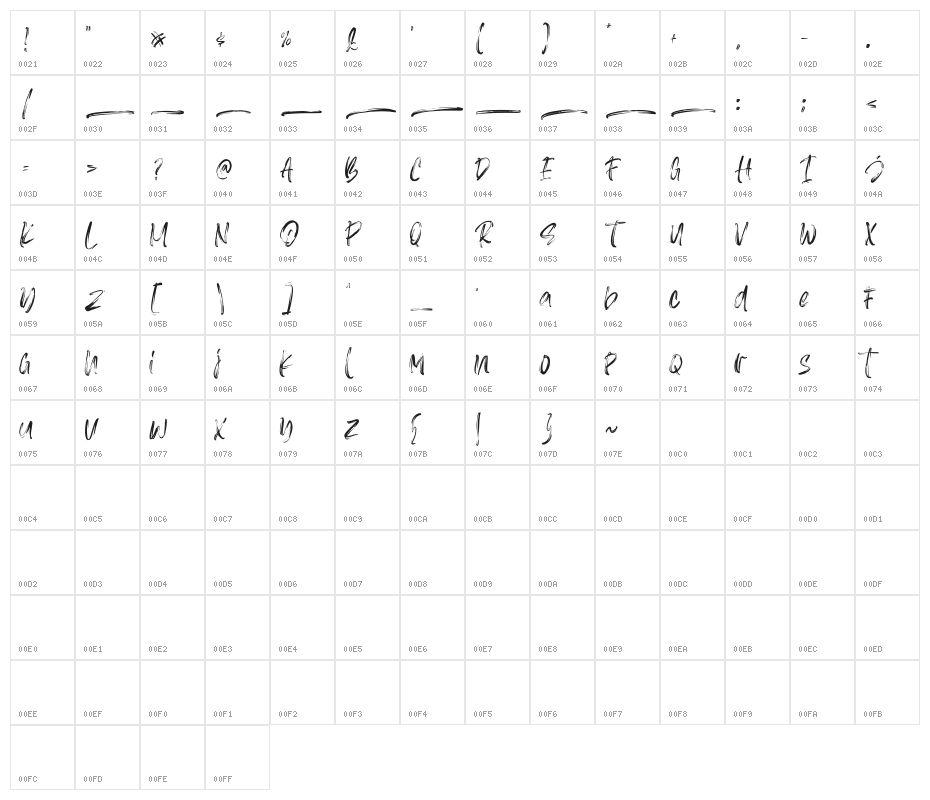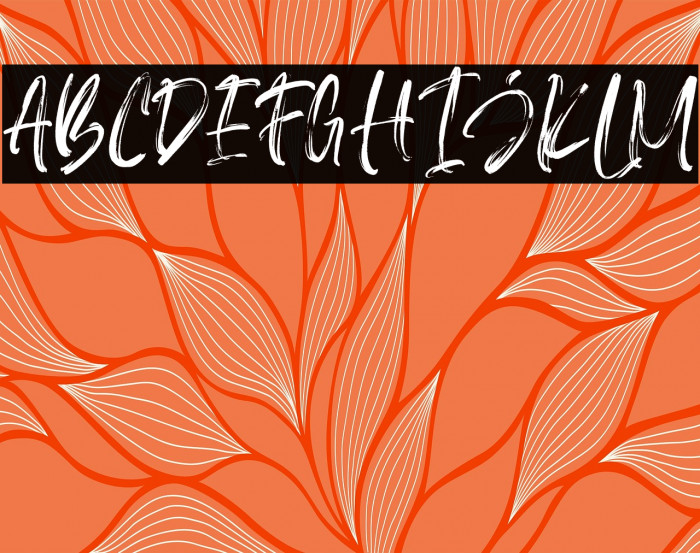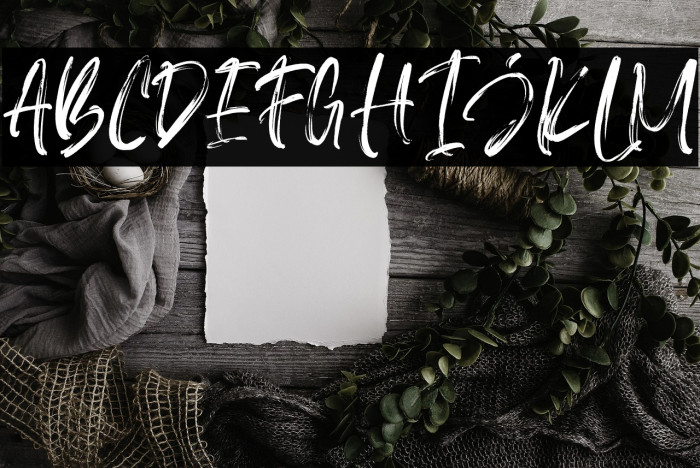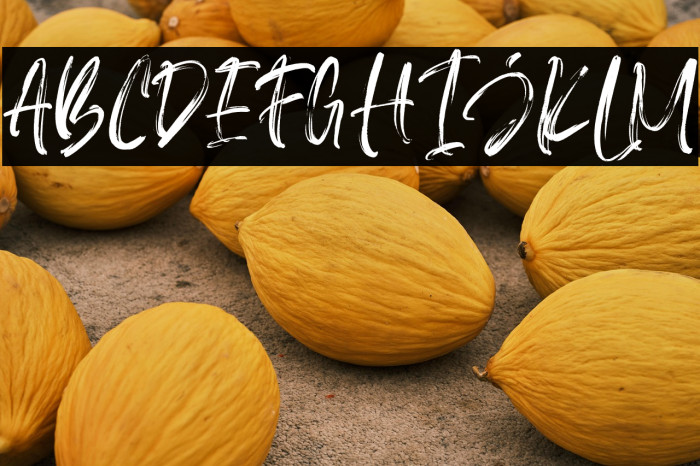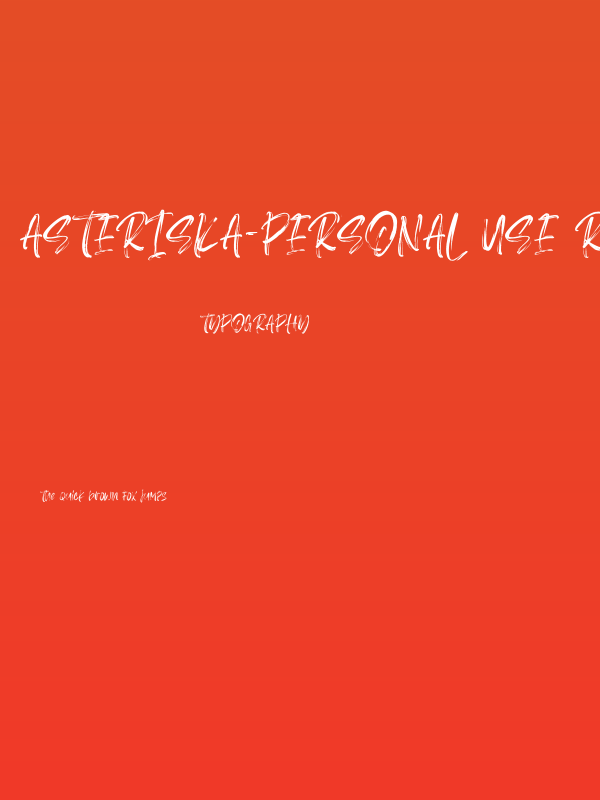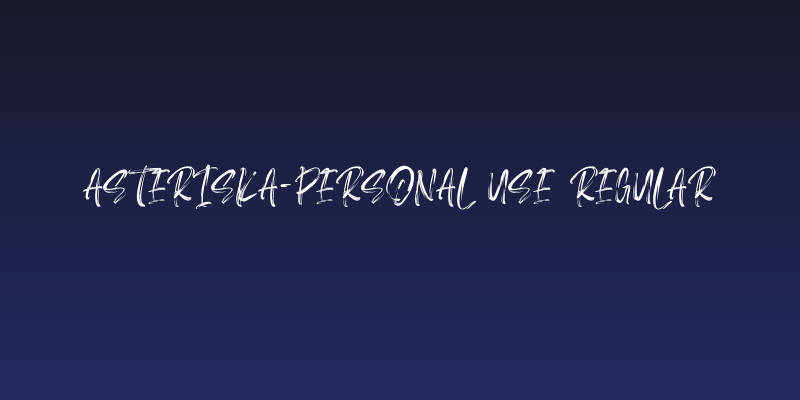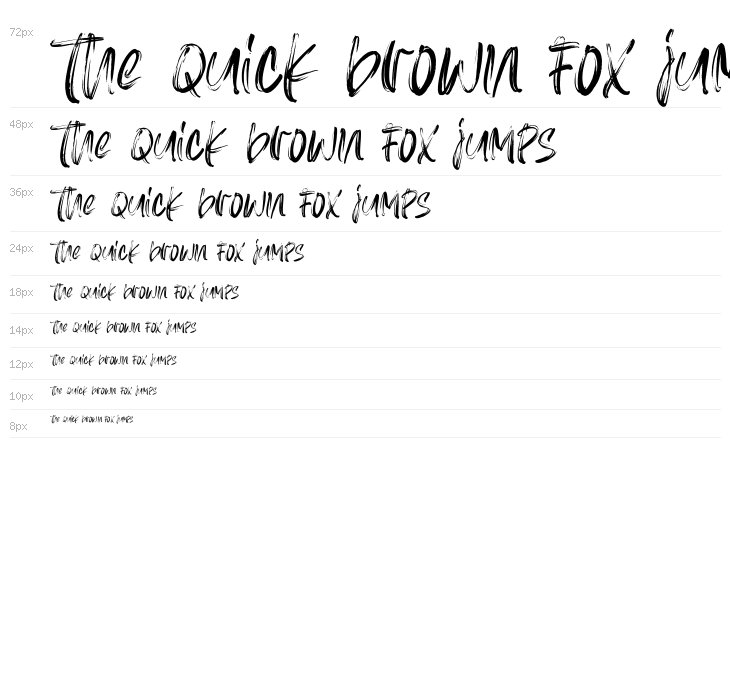
Asteriska-Personal Use Regular Font
Asteriska-Personal Use Regular Description
This font features a dynamic and expressive brush script style, characterized by its bold and energetic strokes. The letters are crafted with a sense of movement and fluidity, giving it a hand-painted appearance. The uppercase and lowercase letters maintain a consistent style, with varying stroke widths that add to its artistic flair. The font includes a full set of numerals and a variety of special characters, each designed with the same lively brushstroke technique. Its overall appearance is both modern and artistic, making it suitable for creative and eye-catching designs.